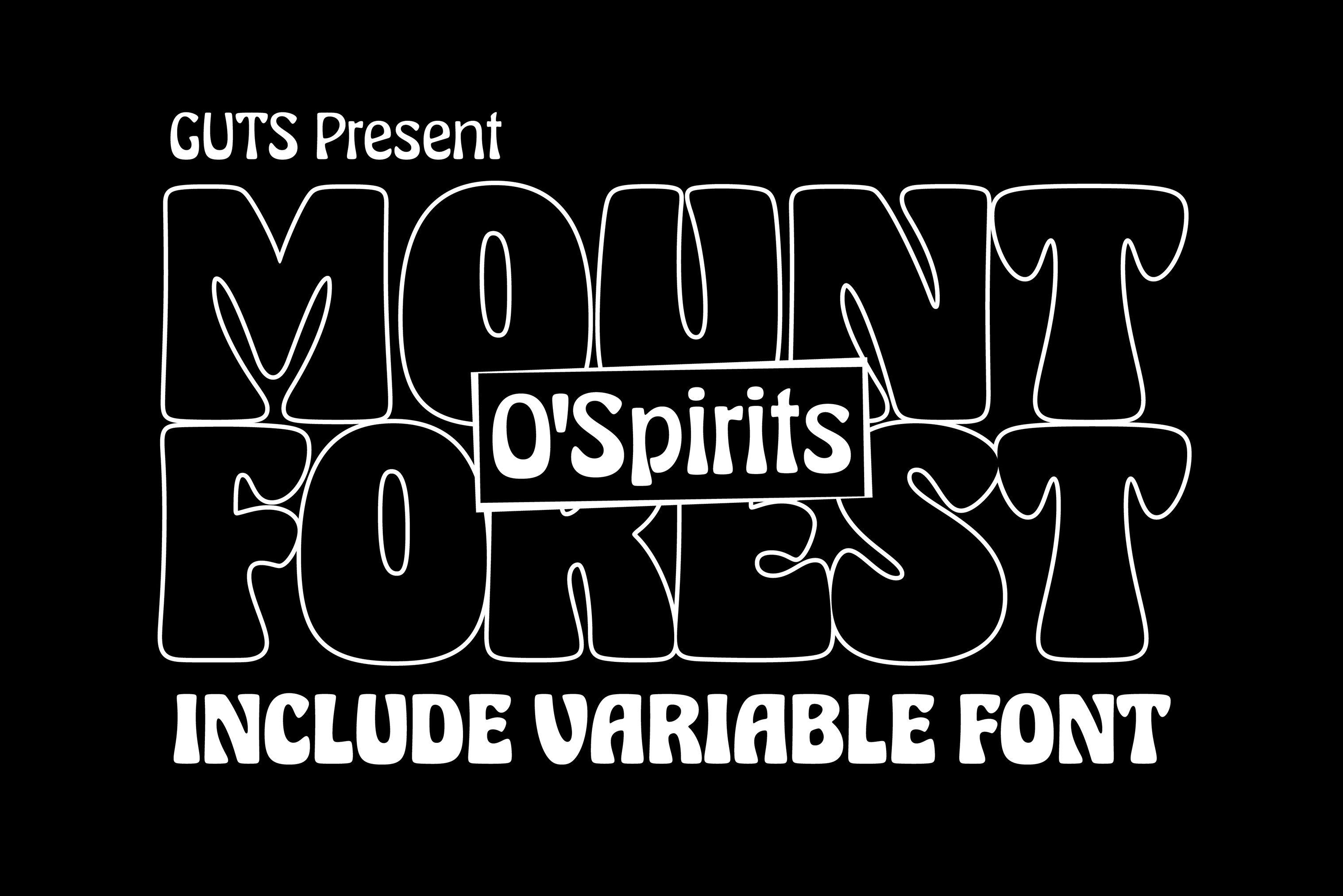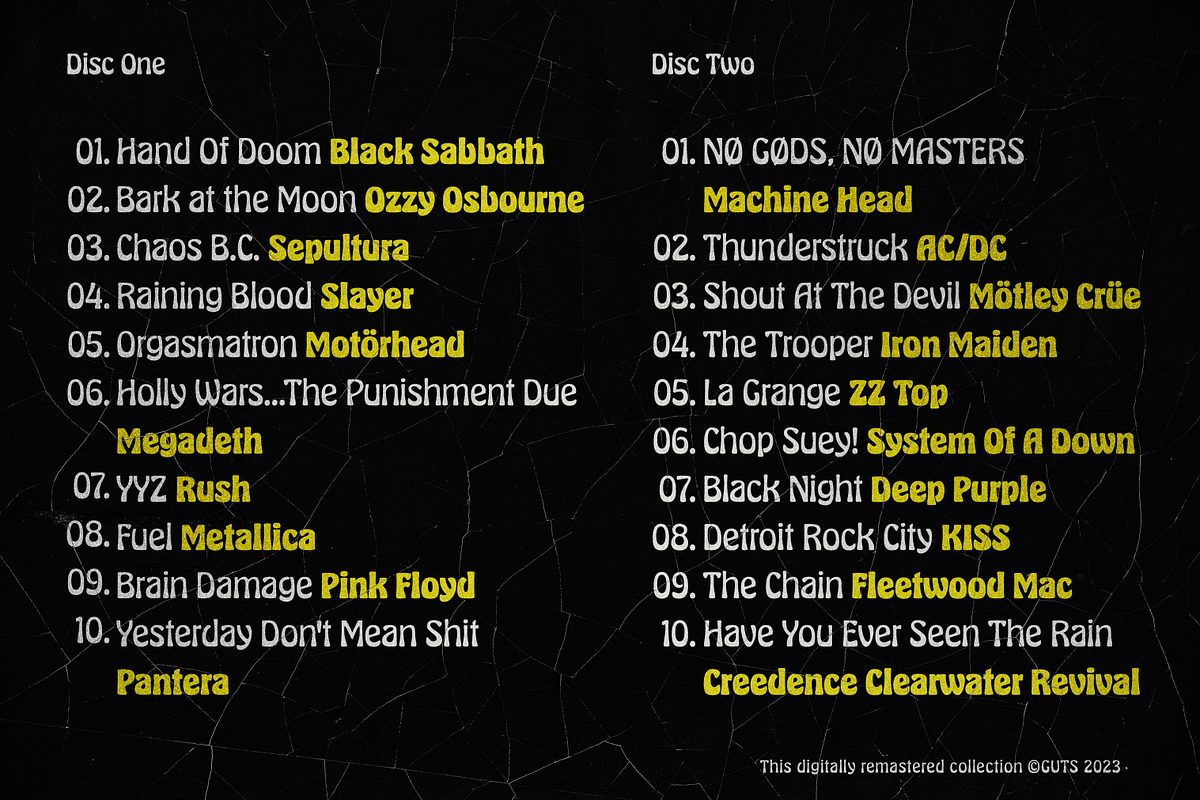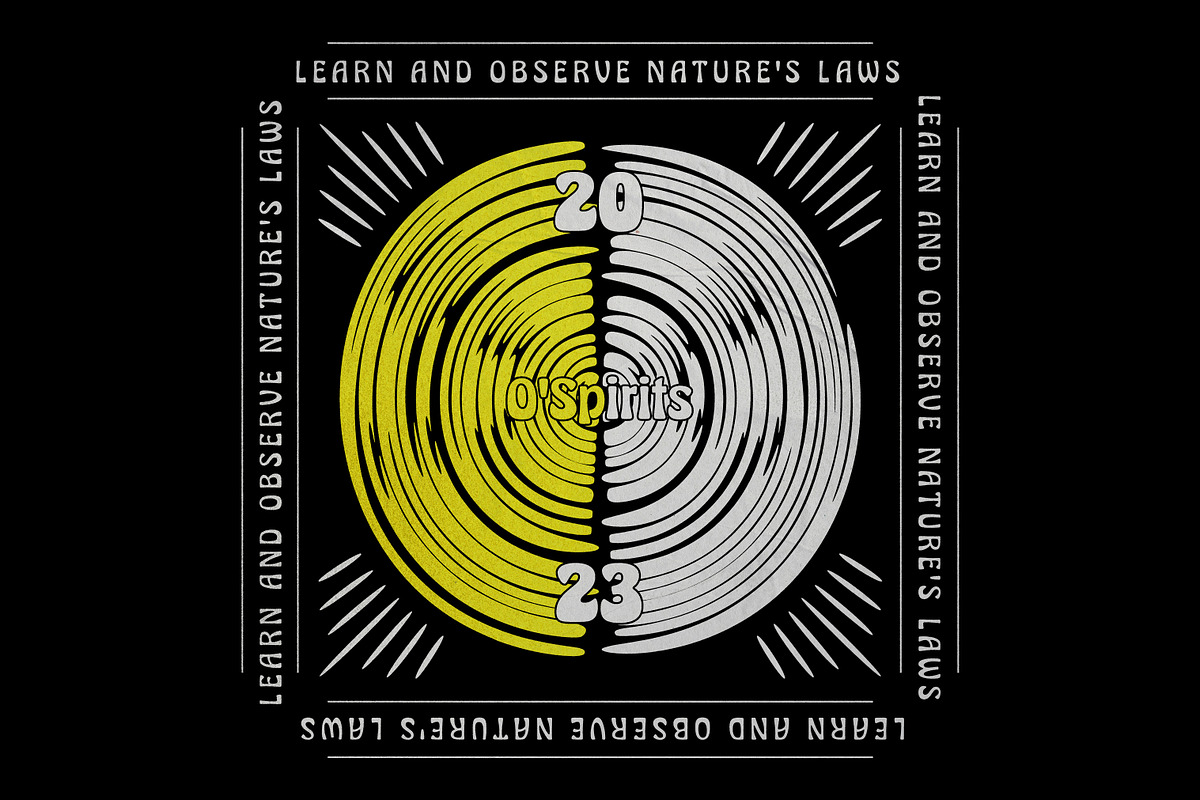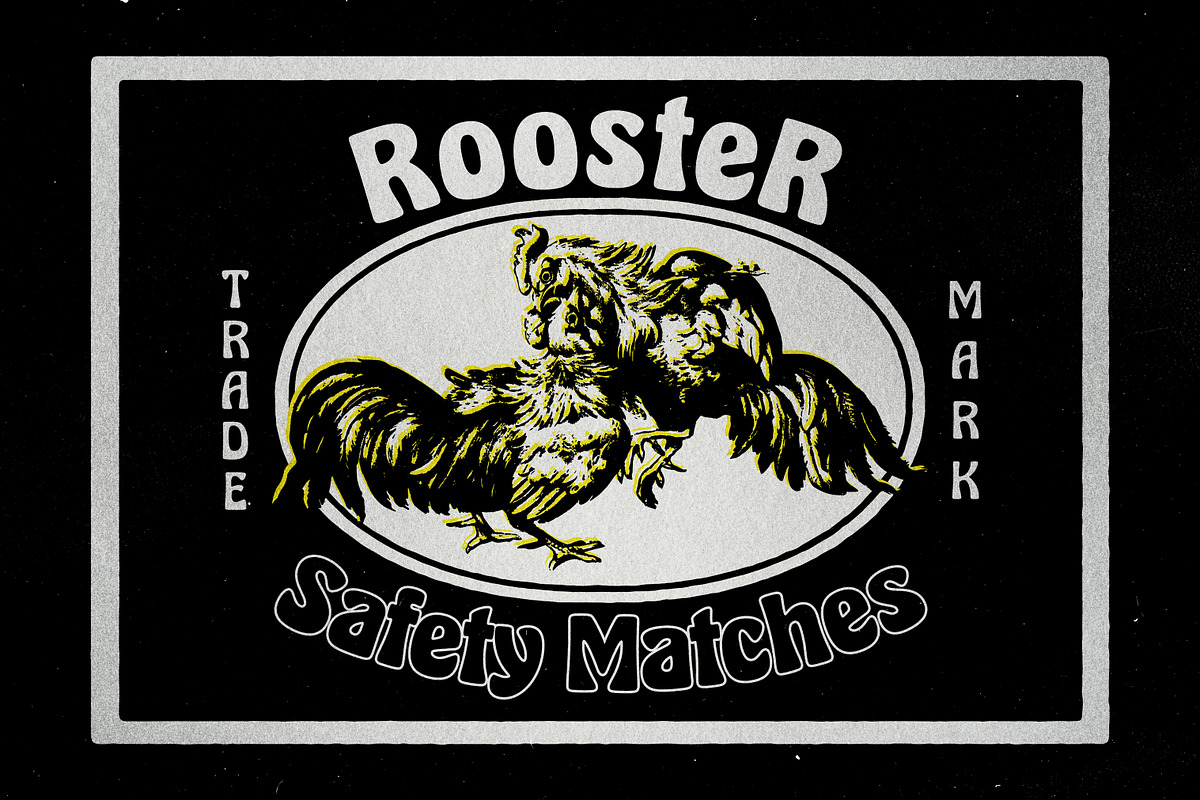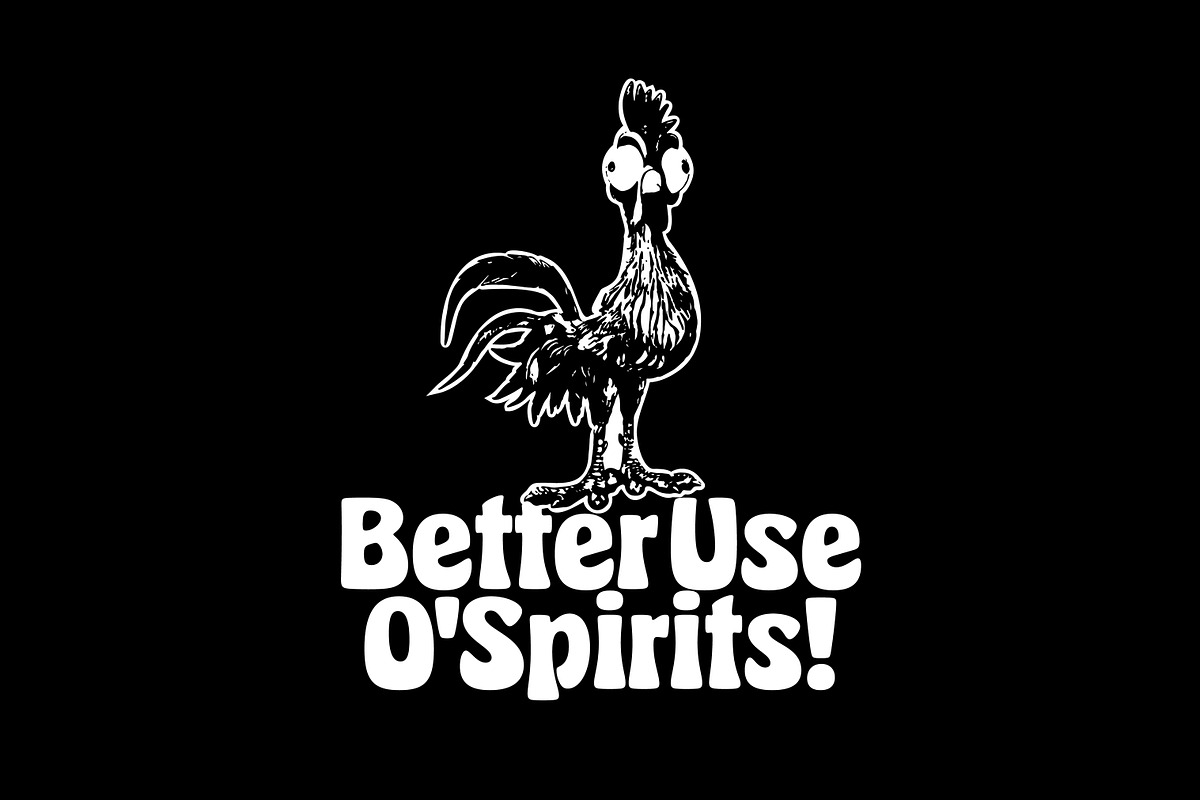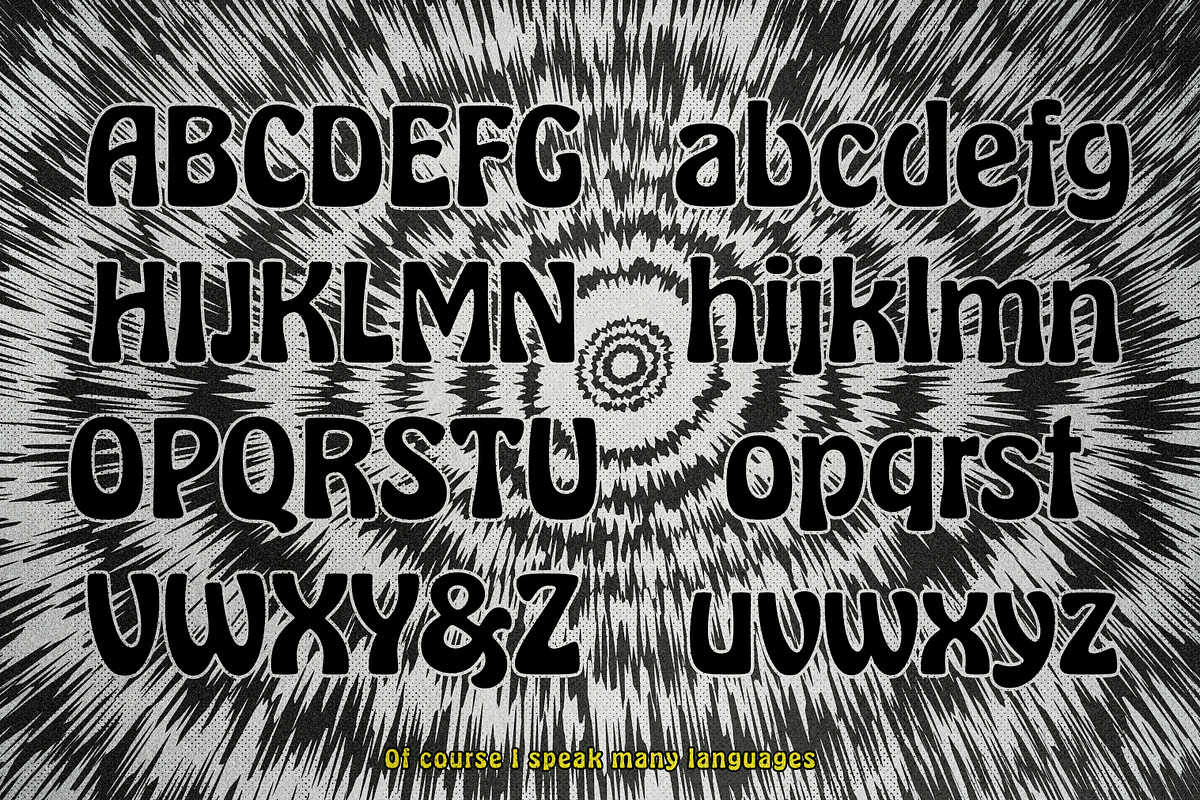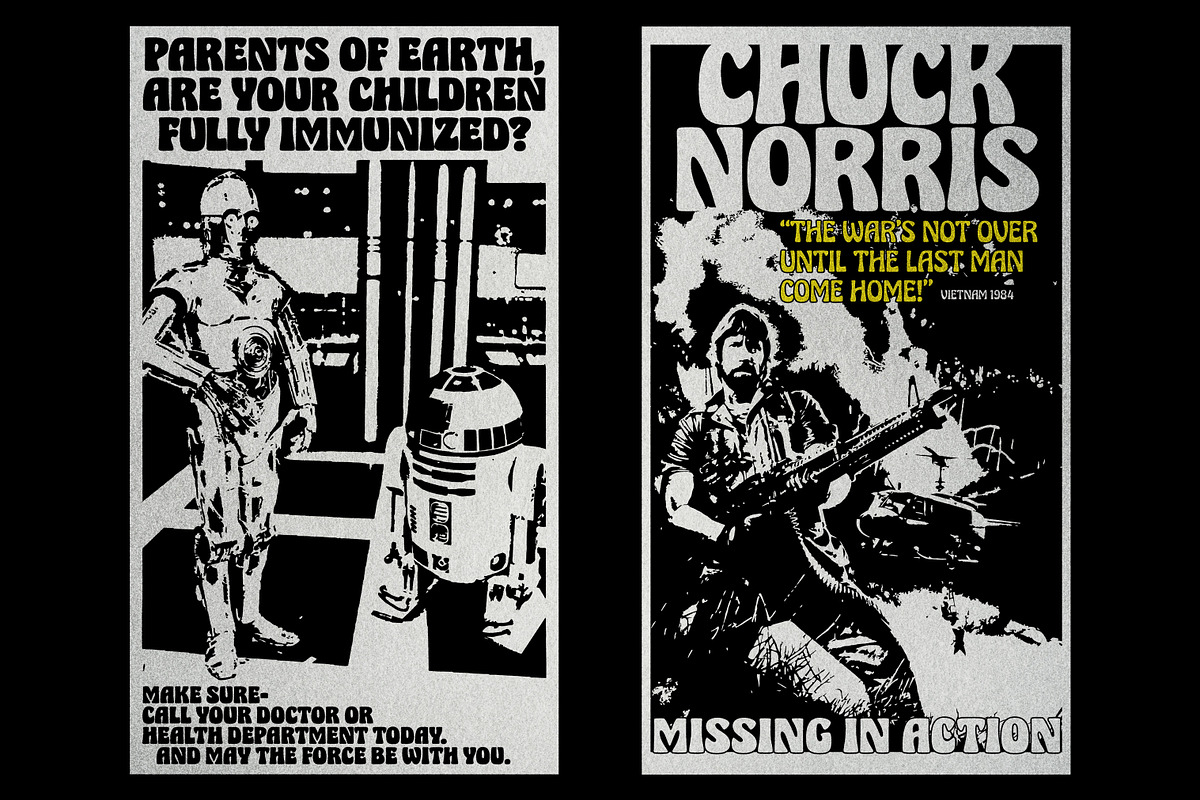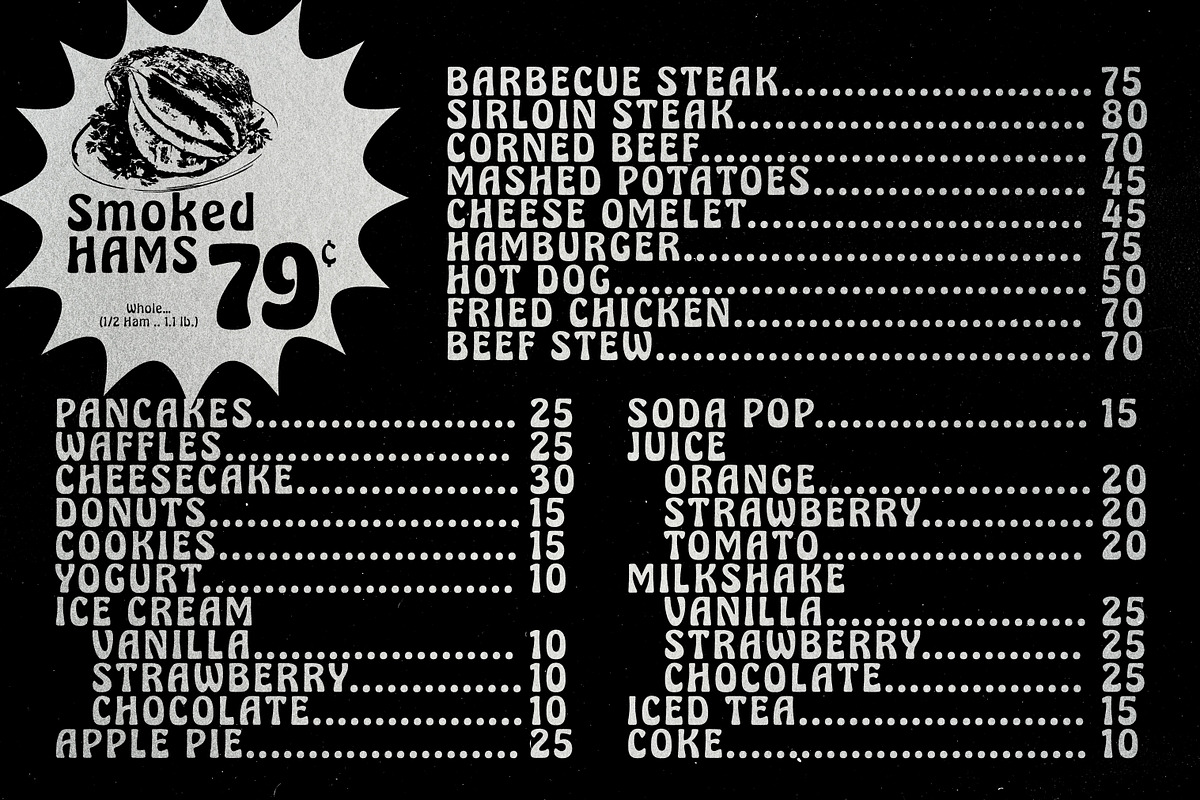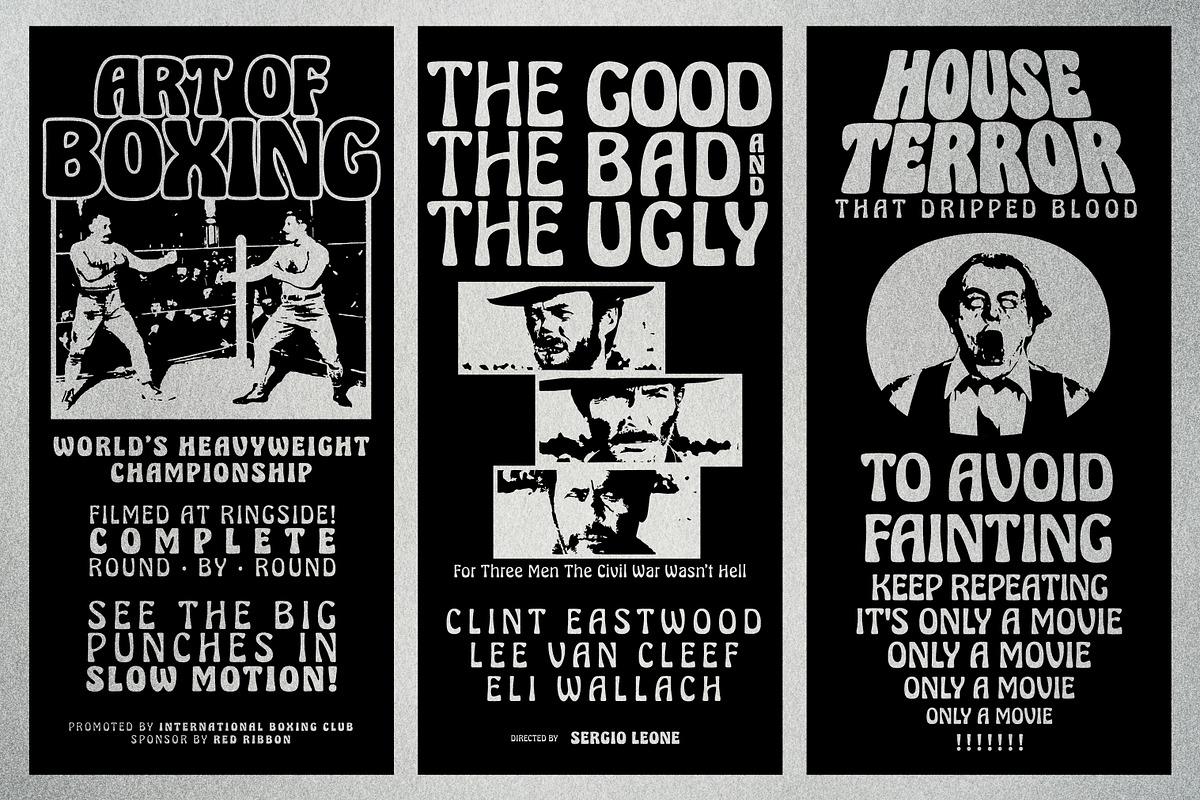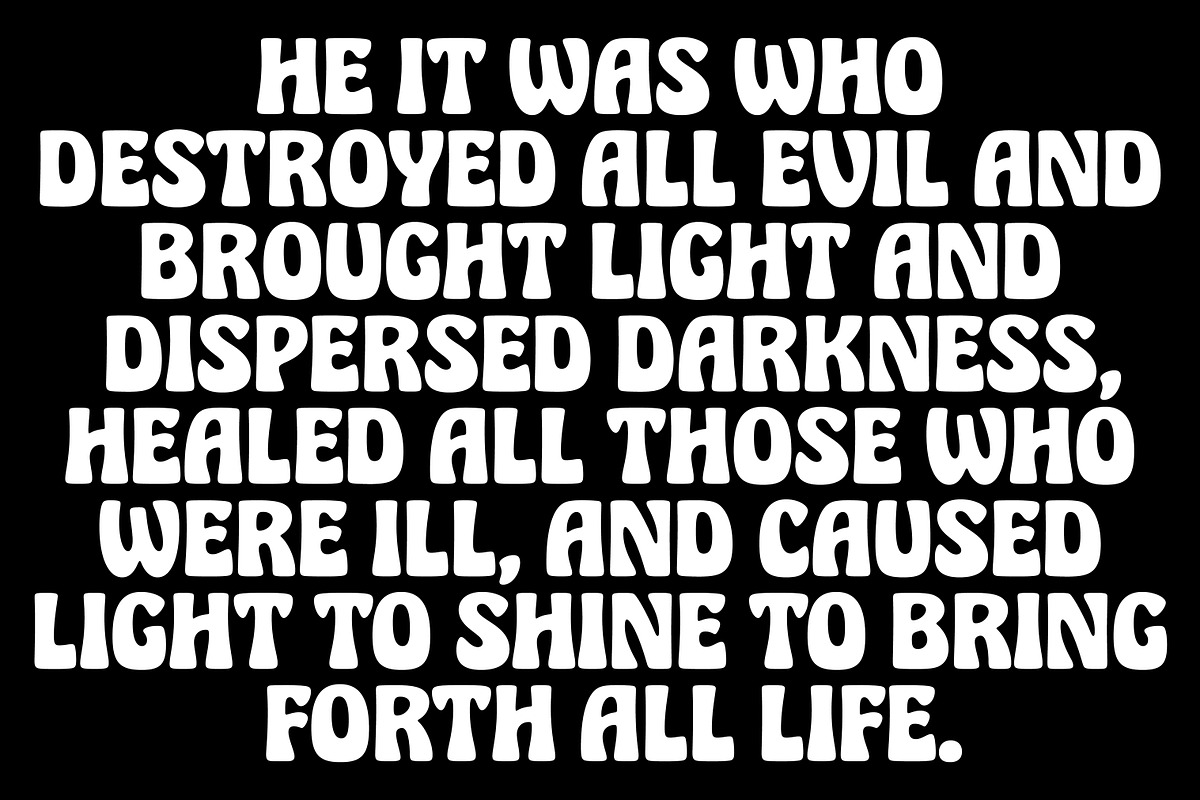
O Spirits Art Nouveau Font
O'Spirits is an art nouveau-style font with slight psychedelic undertones. It was inspired by a font called Hercule and has been refreshed and modernized with more refined pull-out shapes. There are also five additional weights available to meet the needs of designers.
O'Spirits is ideal for inclusion in your psychedelic font collection, and can be incorporated into your designs with ease.